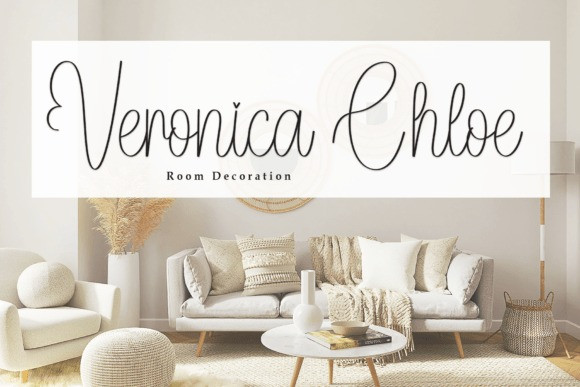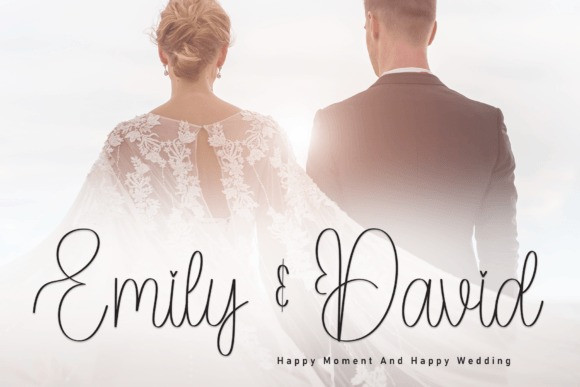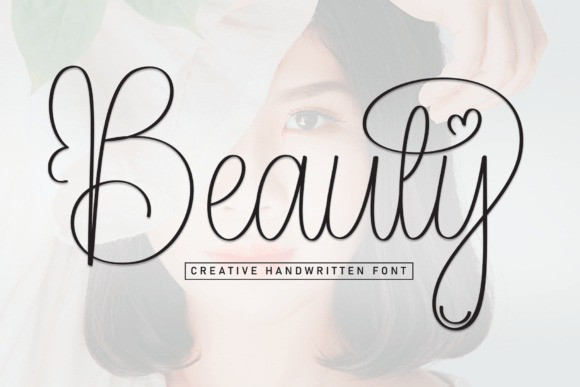
Beauty Handwritten Typeface
Beauty Handwritten Typeface is a sweet and cursive handwritten font. This gentle font will look gorgeous on a variety of design ideas. It will add a joyful and romantic touch to each of your projects!